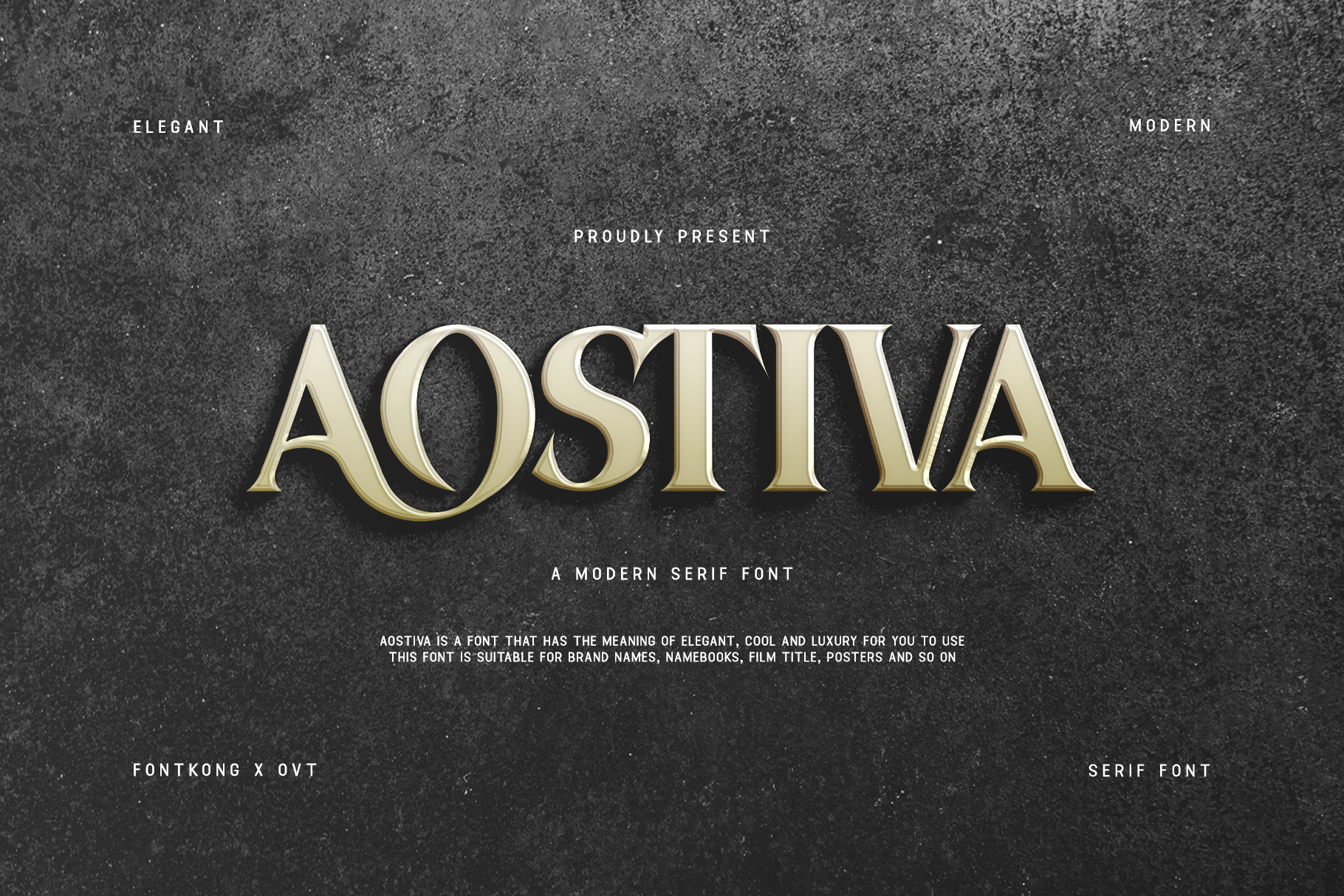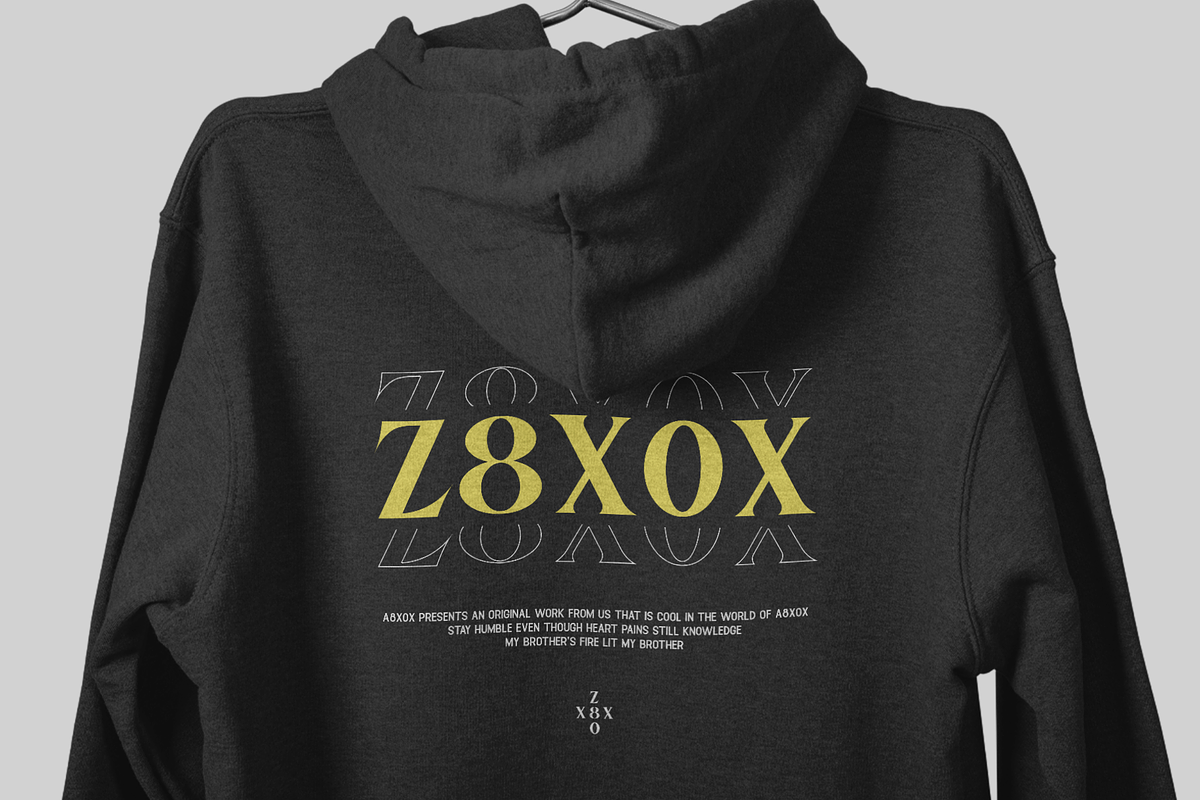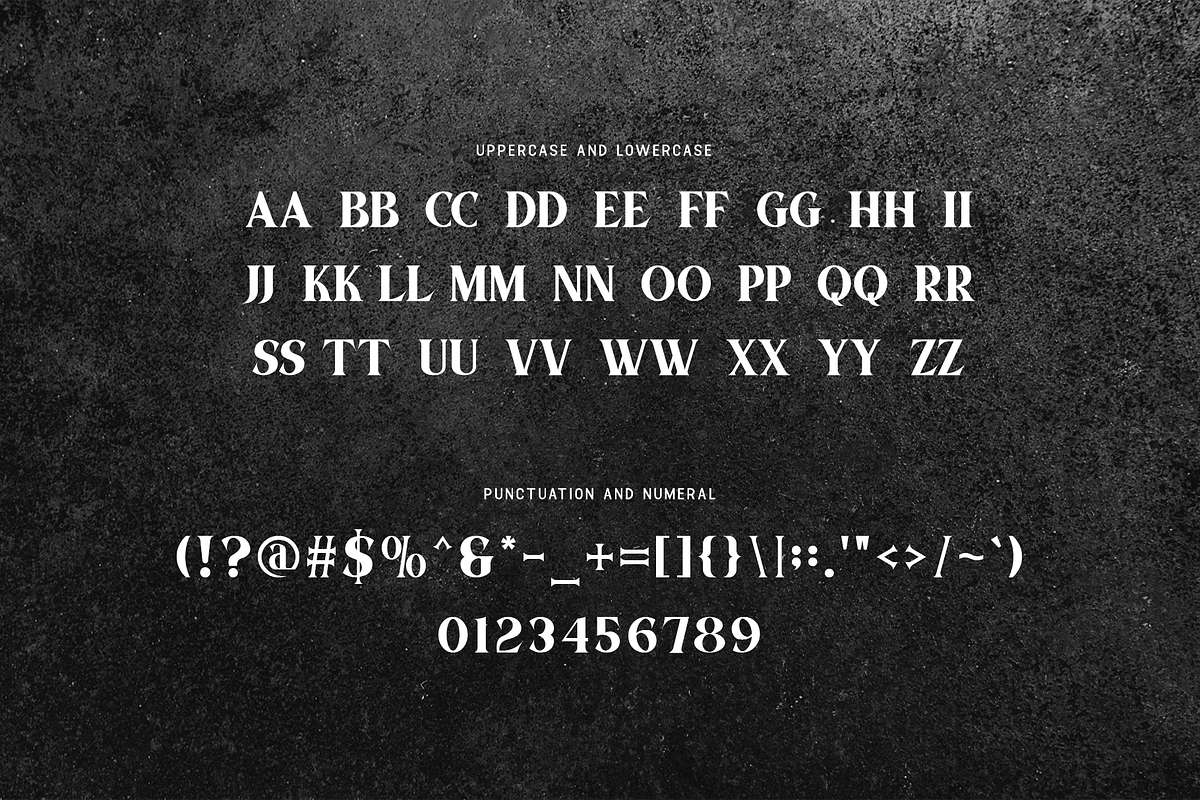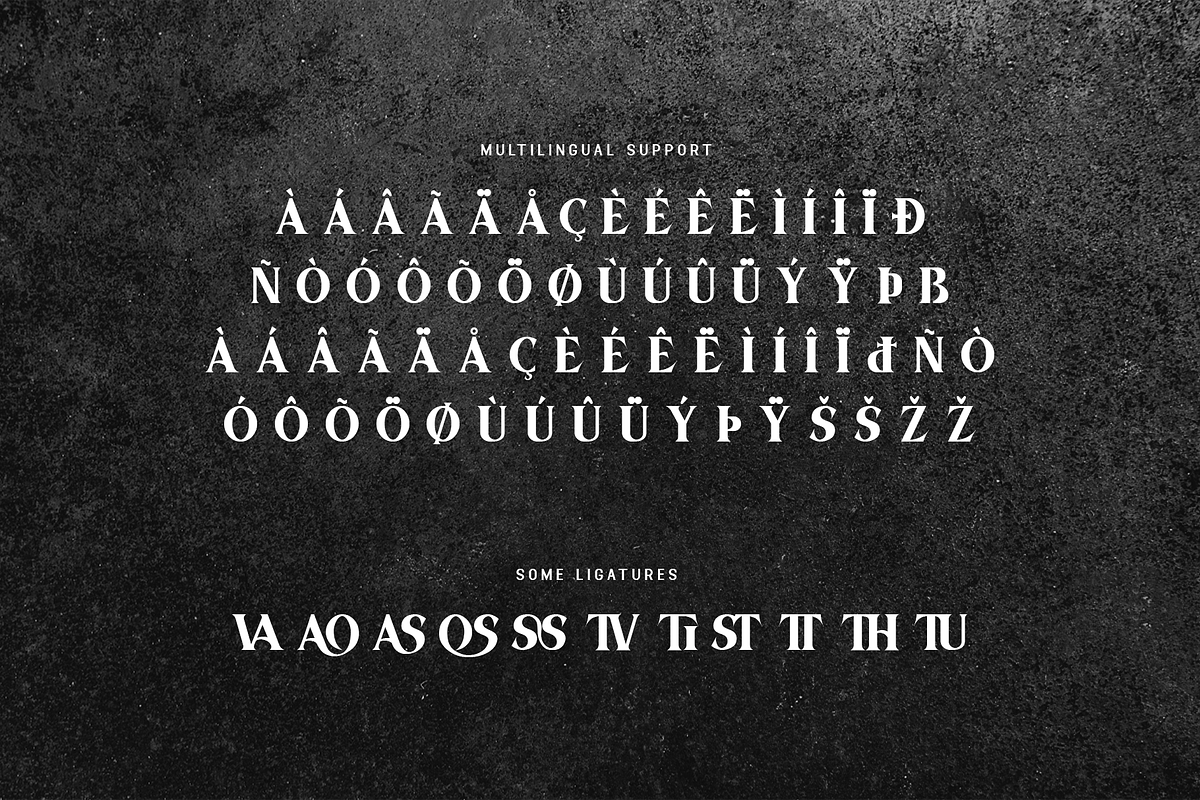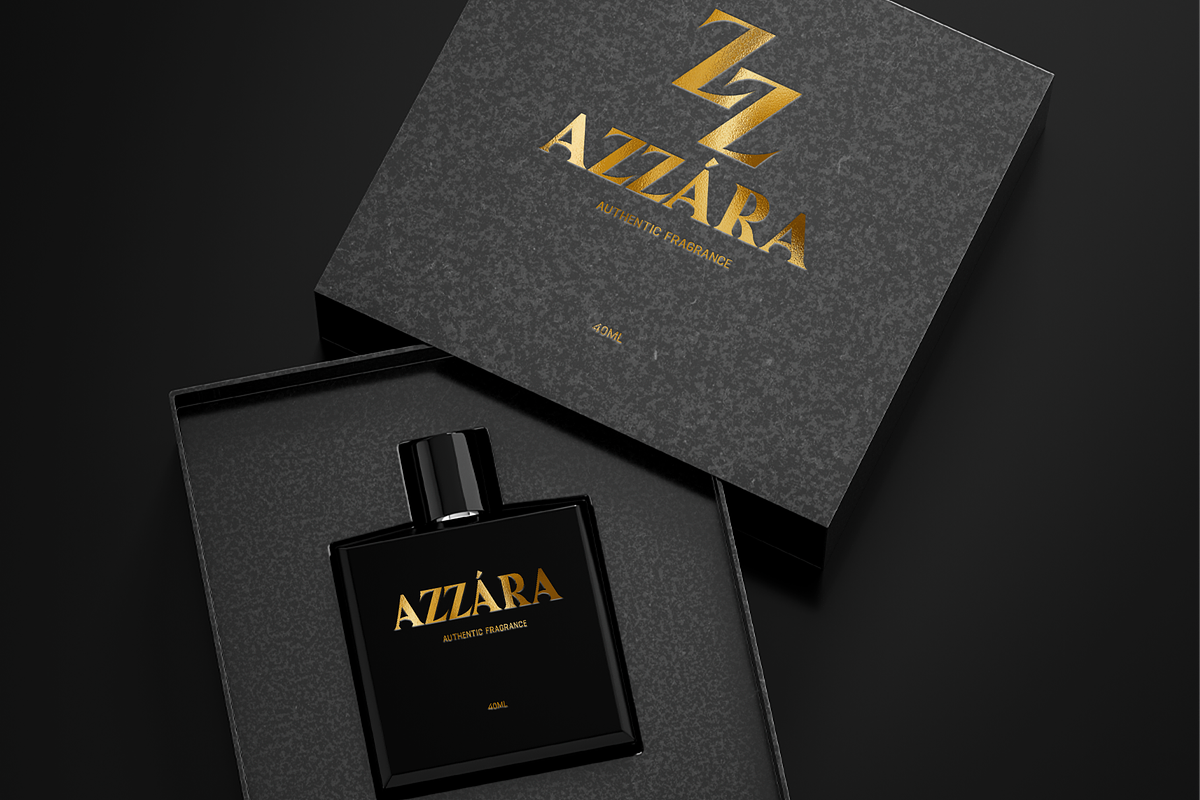
Aostiva - Modern Serif Font
Introducing "Aostiva," a modern serif font that embodies timeless elegance with a contemporary twist. With its sleek lines and refined forms, Aostiva offers a perfect blend of sophistication and versatility, making it an essential choice for modern design projects.
Crafted with meticulous attention to detail, Aostiva strikes the perfect balance between classic serifs and modern aesthetics. Whether you're designing editorial layouts, branding materials, or digital designs, this font commands attention and leaves a lasting impression.
Featuring multiple weights and styles, Aostiva provides flexibility and adaptability for any design endeavor. Its extensive character set includes alternates, ligatures, and swashes, allowing you to customize your typography with ease and precision.
Experience the beauty of redefined elegance with Aostiva and elevate your typography to new heights of sophistication.